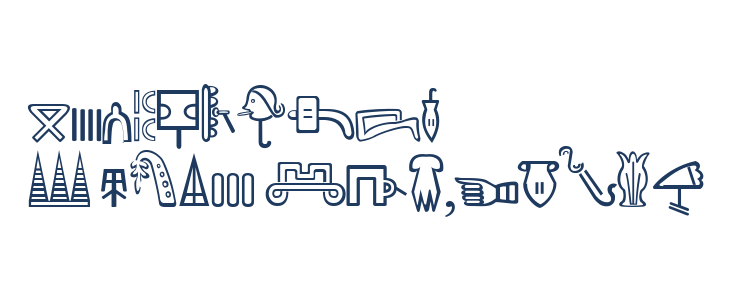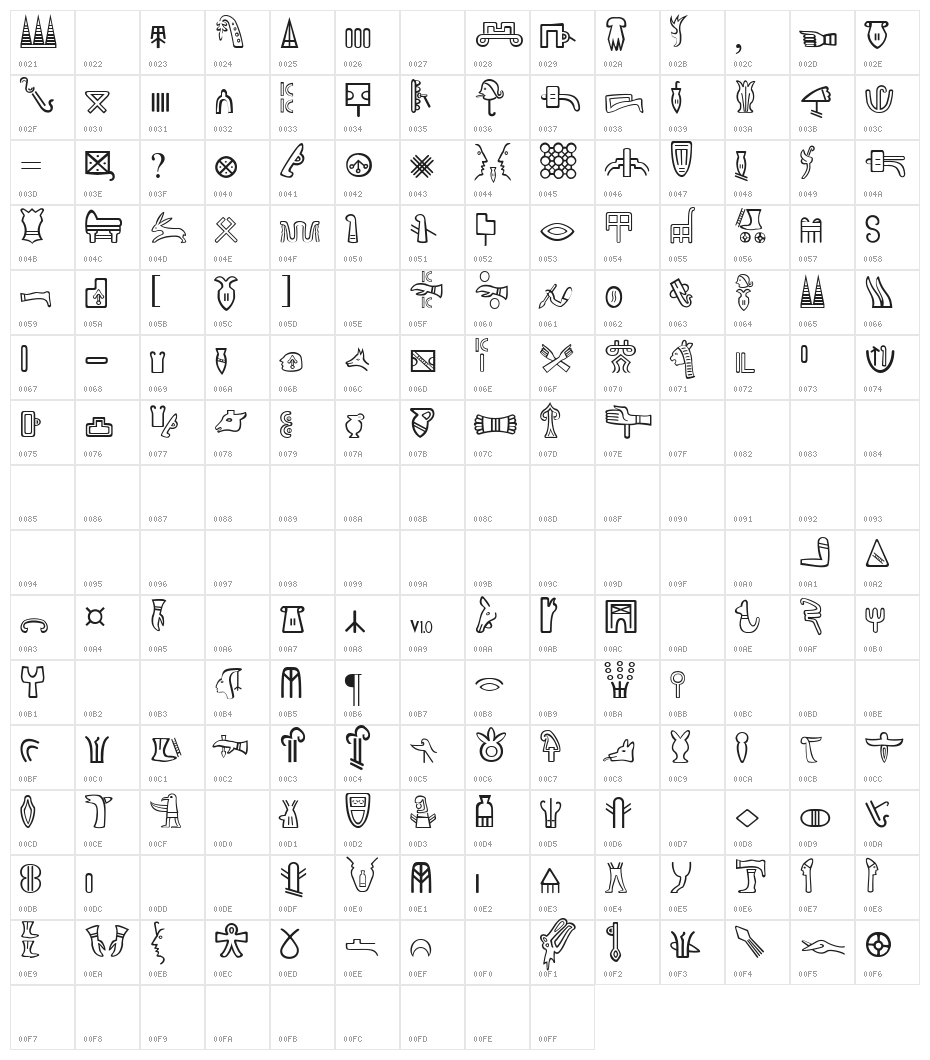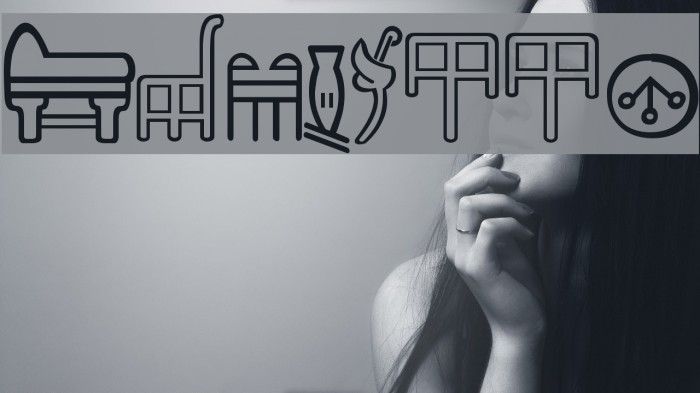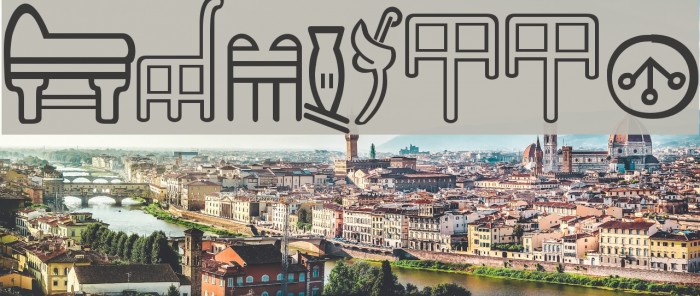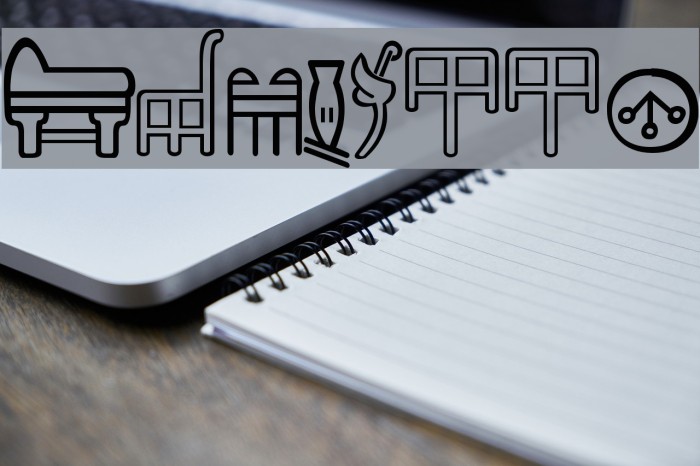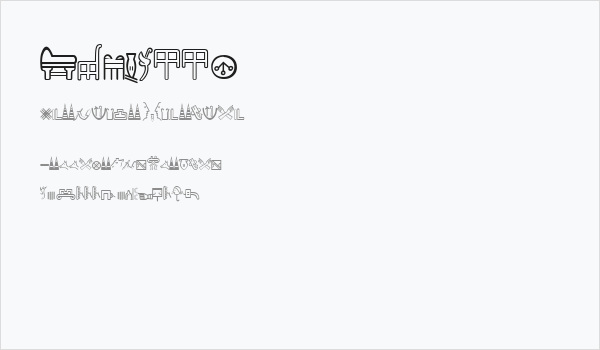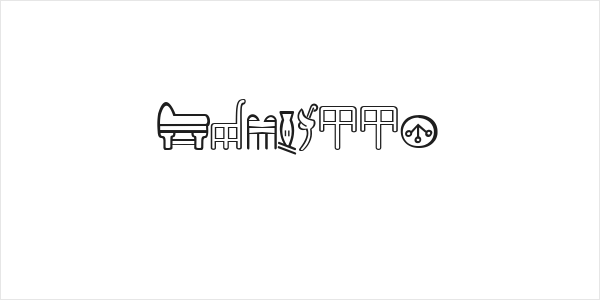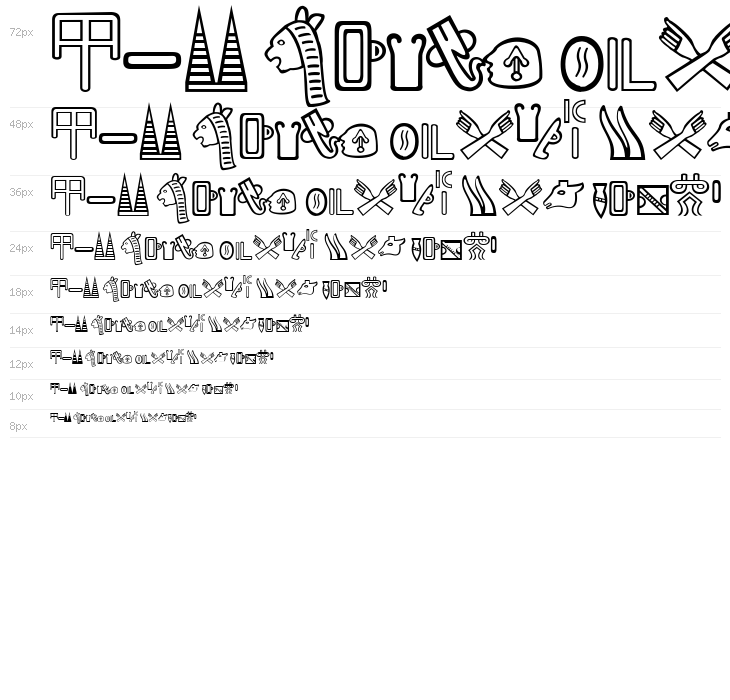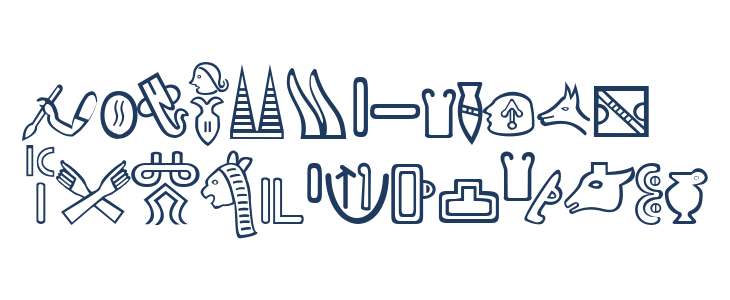
LUWHITTB Font
LUWHITTB Description
Highly decorative font inspired by ancient hieroglyphs, featuring intricate pictorial symbols and complex line work for each character, making it visually rich and historically evocative.
| Overall Style | Decorative, Ancient, Pictorial |
| Use Case | Logos, Posters, Themed Titles, Art Projects |
| Proposed Projects | Historical posters, museum displays, educational materials, themed event graphics, fantasy games. |